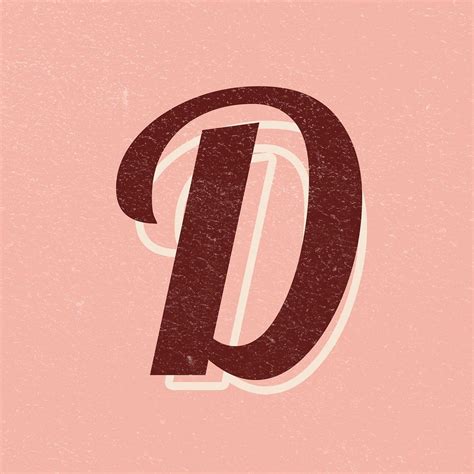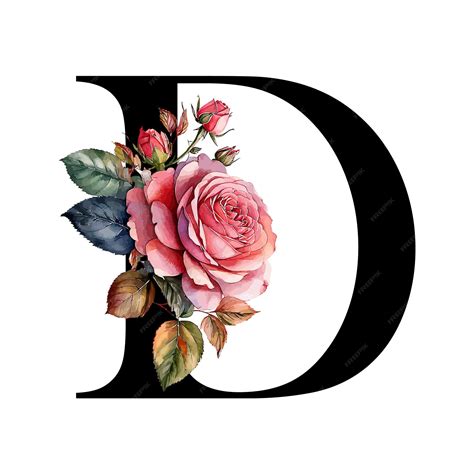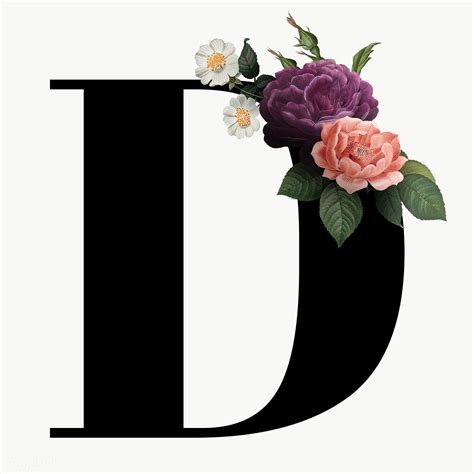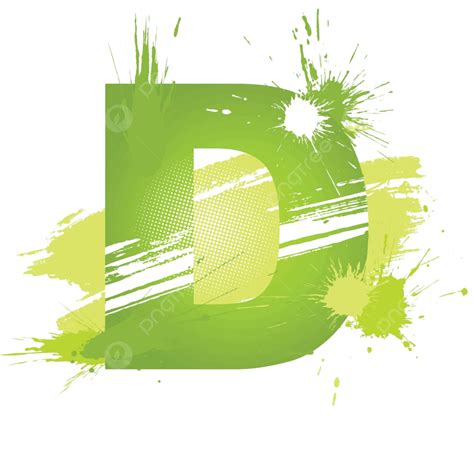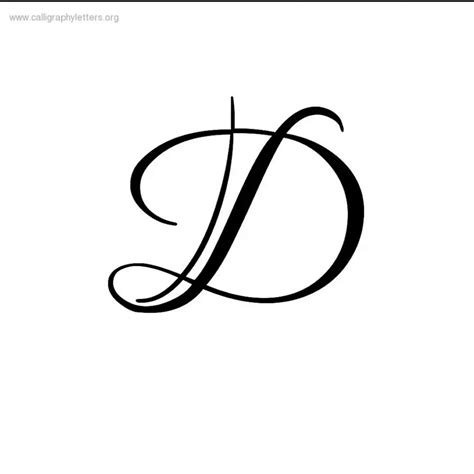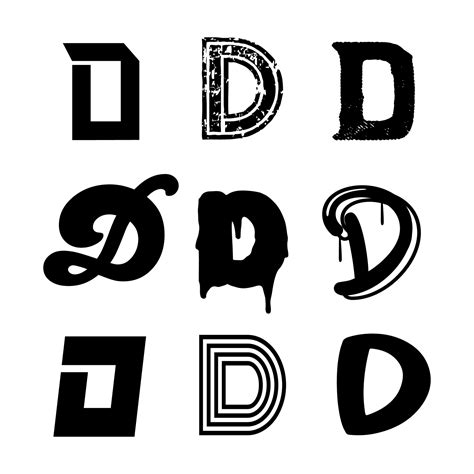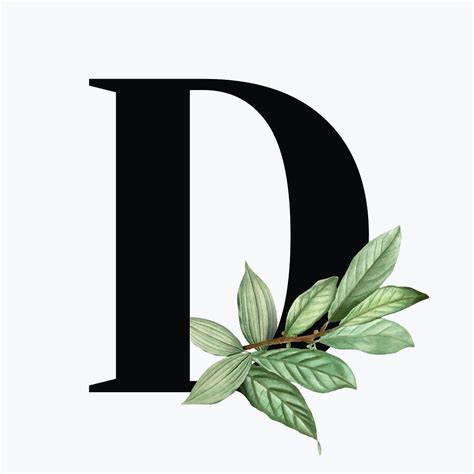
The visual landscape of the digital age is delimitate by how we wangle typefaces to convey personality, hierarchy, and emotion. Among the various techniques used to elevate graphic assets, D Font Design stands out as a foundational pillar for creators who want to advertise the boundary of 3D composition and structural aesthetics. By mastering the principle of depth, shadow, and view, architect can transform standard characters into immersive visual factor that leap off the blind. Whether you are work on a motility artwork project, a branding individuality, or a sophisticated UI interface, understanding the nuances of dimensional eccentric is essential for create work that commands tending in an progressively crowded visual environs.
The Evolution of Dimensional Typography
Composition has evolved from elementary printed ink to highly complex digital assets. In the early days of design, adding "depth" was a manual process of layer and overshadow. Today, D Font Design involve a merger of aesthetic intuition and package precision. Modern design workflows now prioritize the interplay between light and pattern, assure that every bender and seriph spirit grounded in a tangible space.
Core Principles of Depth
- Perspective: Shew a clear vanishing point to afford missive a sense of architectural construction.
- Shadowing: Utilizing drop shadows and ambient occlusion to define the infinite behind and beneath the fiber.
- Materiality: Applying texture like glass, matt plastic, or metallic finishes to enhance the 3D illusion.
- Illumine: Implementing directional light beginning that order where highlight and midtones fall on the letterform.
Technical Approaches to Crafting 3D Characters
When approaching your originative process, it is important to choose the correct methodology. Some designers prefer to work entirely within vector-based environment, while others utilize specialised 3D software to extrude their foundation fonts. Each method volunteer distinct advantages in terms of control and stylistic consequence.
Below is a relative breakdown of the workflows employ to reach high-quality event:
| Methodology | Best Employ For | Complexity |
| Transmitter Layering | Plane 3D Styles | Low |
| Extrusion Tools | Classic 3D Lettering | Medium |
| Sculpting/Modeling | Organic, Experimental Shapes | Eminent |
💡 Note: Always ensure your substructure font has houseclean, closed transmitter paths before essay to extrude or add depth to avoid messy geometry that is hard to render later.
Strategic Implementation in Branding
Why do brands adorn in dimensional typography? The solution lies in marque recognition and cognitive memory. When a logotype or a headline usage D Font Design effectively, it creates a tactile retention in the watcher. The eye lingers longer on objective that have depth because they are perceive as physical entities rather than simple textbook on a page. This psychological appointment is critical for building a potent, memorable identity in competitive grocery.
Best Practices for Professional Output
- Maintain Legibility: Do not let the added depth obscure the readability of the typeface. If the structure become too complex, the content is lose.
- Consistency in Light: Control your light germ stay ordered across all characters. Merge lighting slant make a disjointed and unprofessional optical experience.
- Proportion Scale: Dimensional font often require more space than flat fonts. Design your layout consequently to adapt the increased footprint of the characters.
Mastering the art of dimensional inscription let you to transcend the limitation of traditional, categorical design. By thoughtfully integrating view, light, and shadow, you turn routine text into compelling visual level that vibrate with your audience. Remember that the goal is always to enhance communication preferably than deflect from it; simplicity ofttimes proves to be the most potent instrument in your originative arsenal. As you refine your technological skills and develop a keener eye for spatial agreement, you will encounter that your ability to cook pattern and light make a permanent wallop. Continued experiment with these technique will finally lead to a more sophisticated and svelte approaching to every project, ensure that your composition remains a classical highlighting of your pattern portfolio.